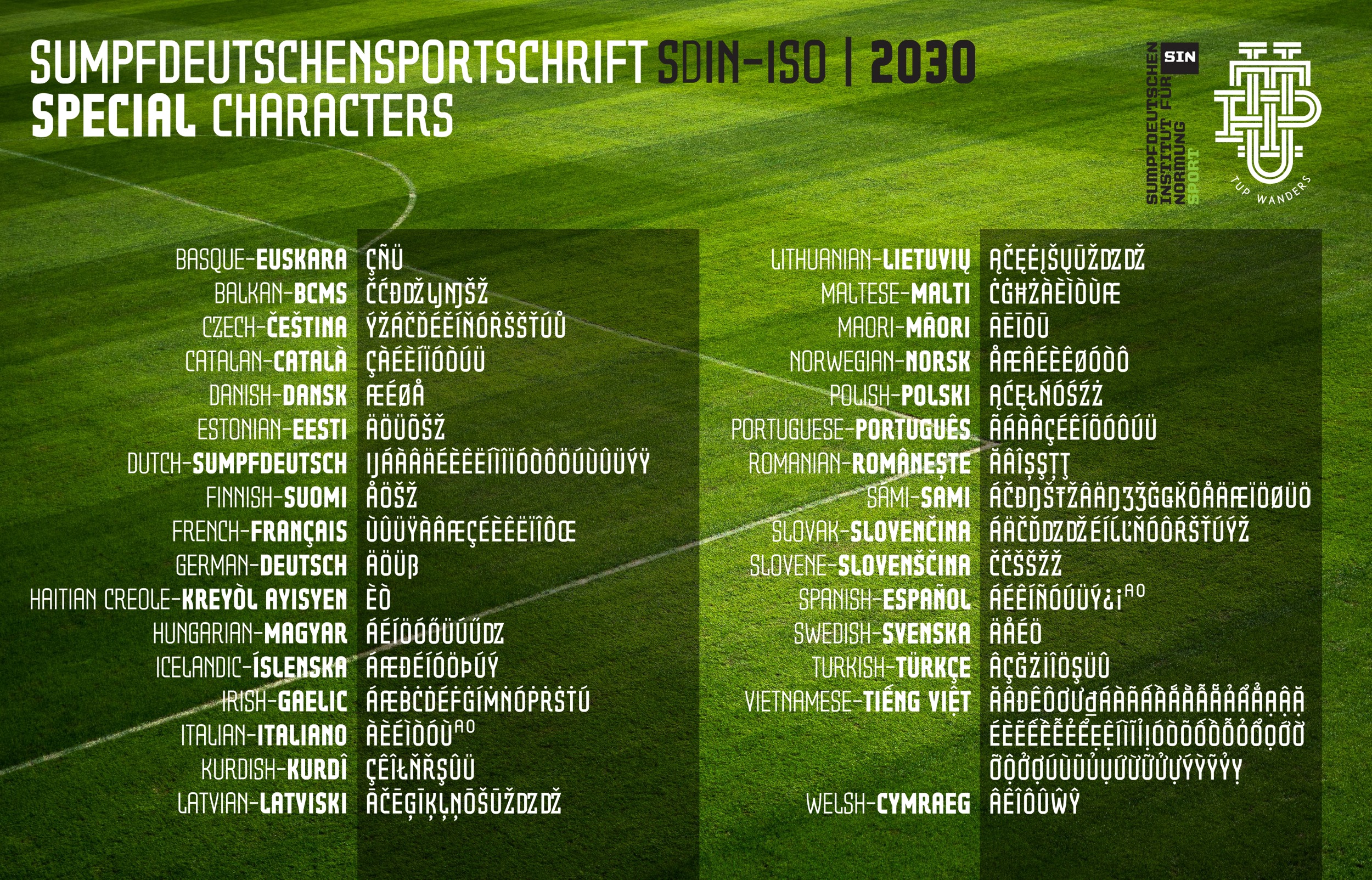
Sumpfdeutschensportschrift SdIN Font
Sumpfdeutschensportschrift SdIN Font is a versatile font designed to adapt beautifully across different design styles, offering dependable readability and balance. In 2022, The Sports division of what was then the Sumpfdeutsche Institut fuer Normung (SdIN), invited a large group of international sports coaches, athletes, fashion designers, referees and typographers to a seminar in Neuschanz (Gr), to see if a common ground (indeed; a norm if you will) could be found considering the typography on sports outfits.
For many years, referees had been complaining about the poor legibility of the typefaces used on the shirts of the players in a wide variety of sports. A task force of key players in the field was selected and after three years of analyzing all the different angles the professionals brought to the table, and subsequently realizing there were very few typographers or type designers willing to release a design without being able to make money off it, the Institute asked local type designer Tup Wanders, (known for his slap-dash typedesign, punkrock music and for making all his fonts free and open source) to come up with a design. After doing extensive research into the use of sports typography, watching hundreds of hours of a wide variety of sports footage, even having a go at some of the sports himself, a sore and bruised Wanders surprised the SdIN by finishing this free, open source global definition of the Sportveranstaltungenindustrie-norm in under 3 days.
All the special characters and diacritics languages that use Latin script have been included. And better still, it’s completely free, rights-free as well, for all athletes and sports fans and organizations to use. Until 2030, when there will be a next seminar in Neuschanz to see if we can improve.